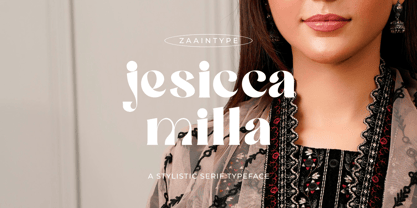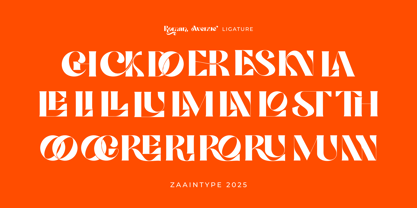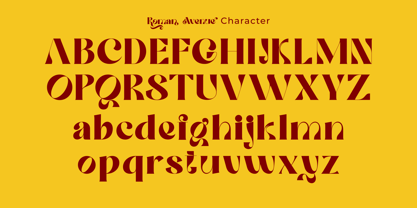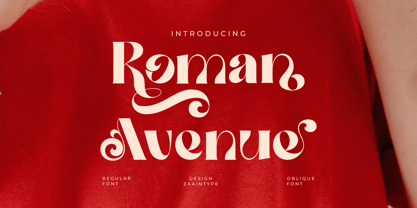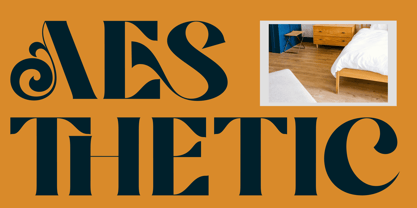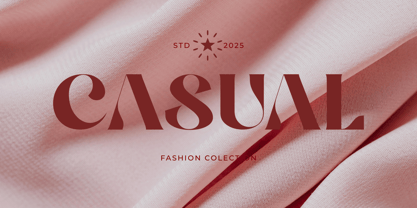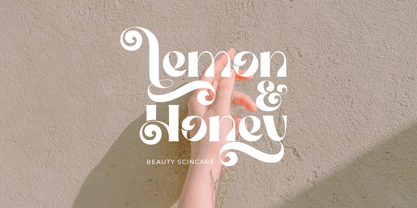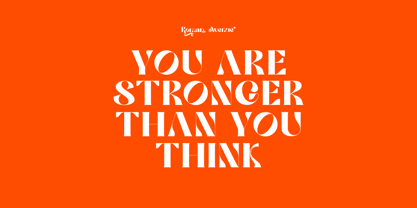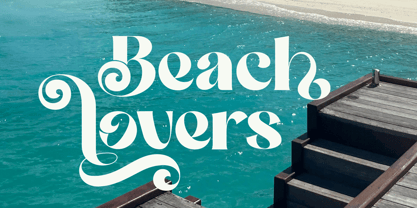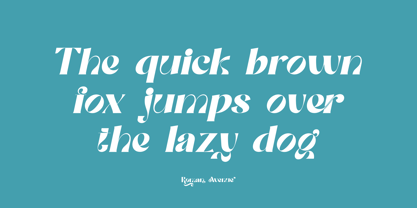
Roman Avenue
by Zaain Type
The Roman Avenue Font Family was designed by Ju Naen and published by Zaain Type. Roman Avenue contains 2 styles and family package options. More about this family
Roman Avenue is an elegant serif font that blends classical charm with a modern touch. Available in two styles—Regular and Oblique—it is crafted to deliver a luxurious and professional feel in every design. With balanced letterforms that are sharp yet refined, Roman Avenue is perfect for branding, editorials, and sophisticated visual projects